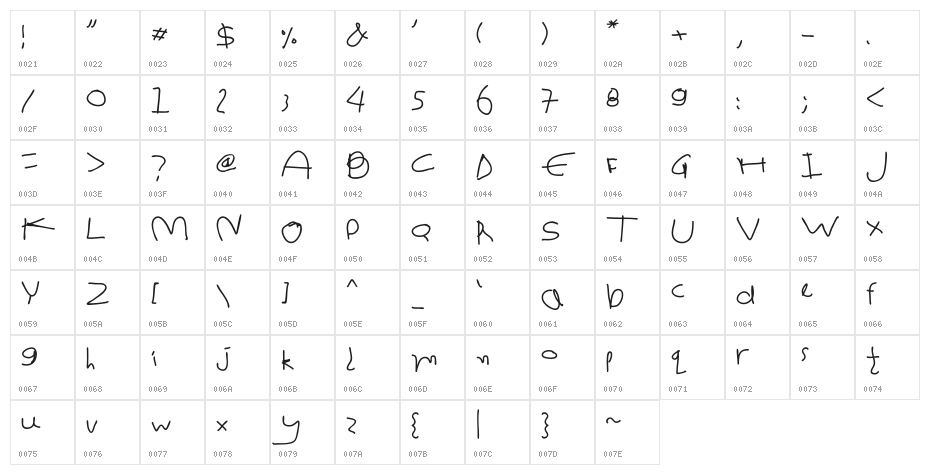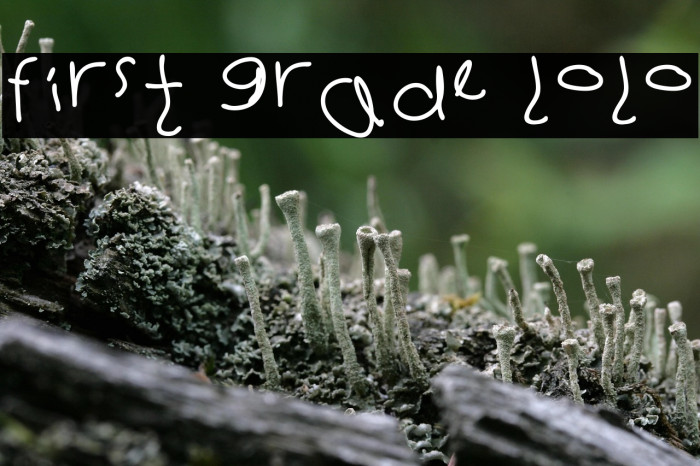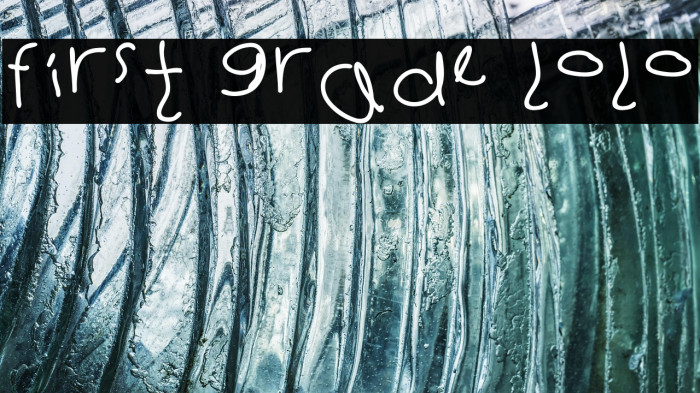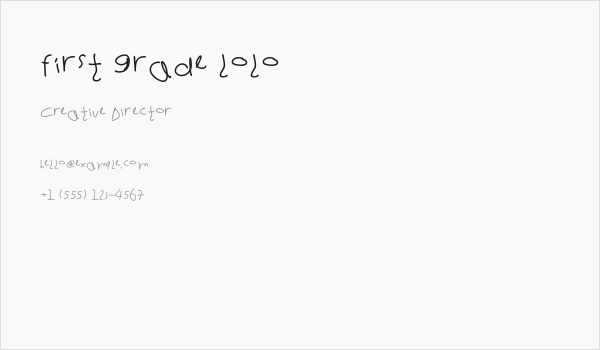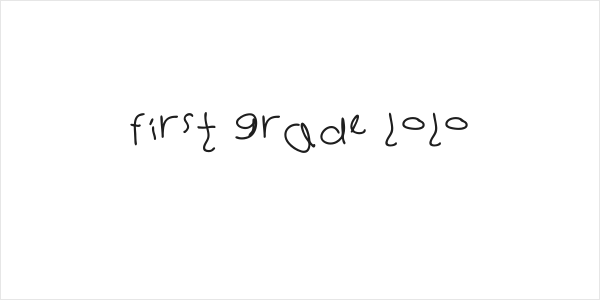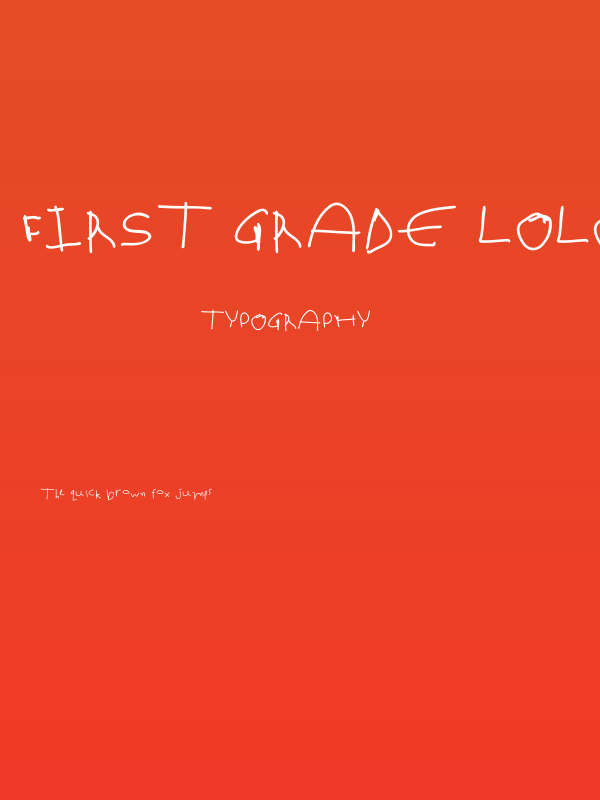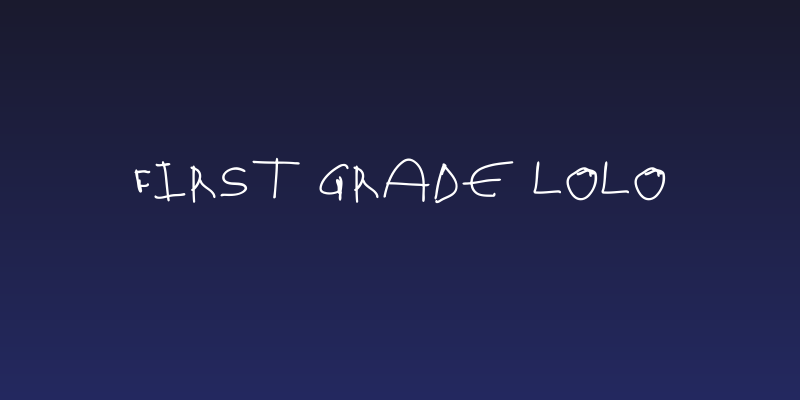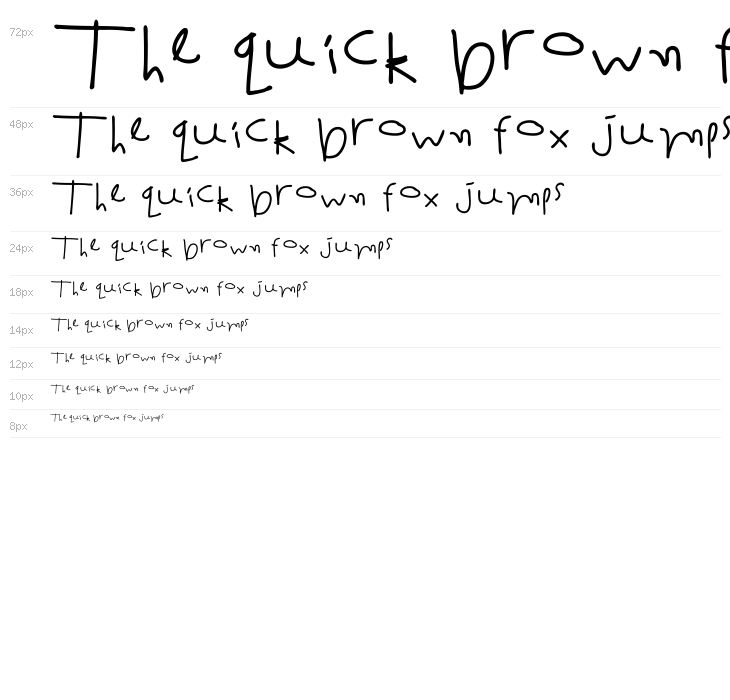
first grade lolo Font
first grade lolo Description
A playful, handwritten font with irregular strokes and a casual style.
| Use Case | Headlines, Informal text, Children's materials |
| Proposed Projects | Children's books, casual invitations, playful branding. |